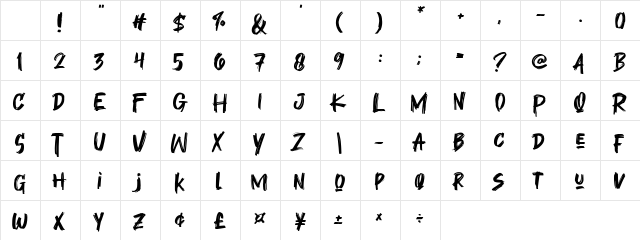
Complete The Lost Dungeon Regular glyph index. Displaying only characters natively supported by The Lost Dungeon Regular font.
The Lost Dungeon is a composed and adaptable typeface that performs quietly and consistently across a wide range of design contexts.